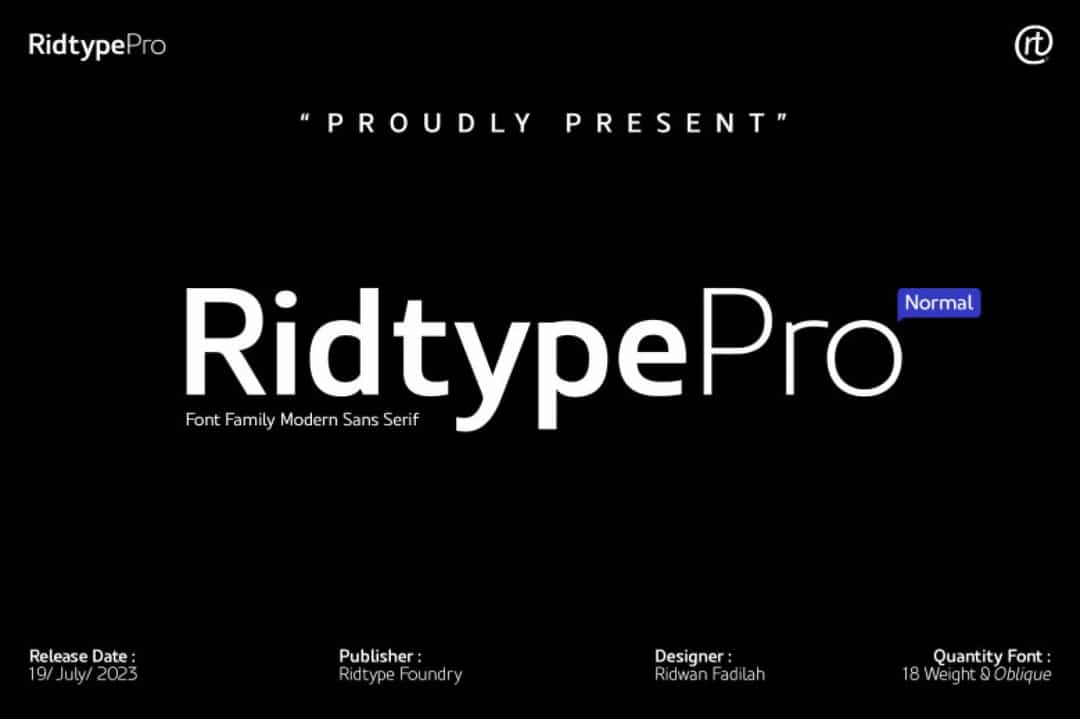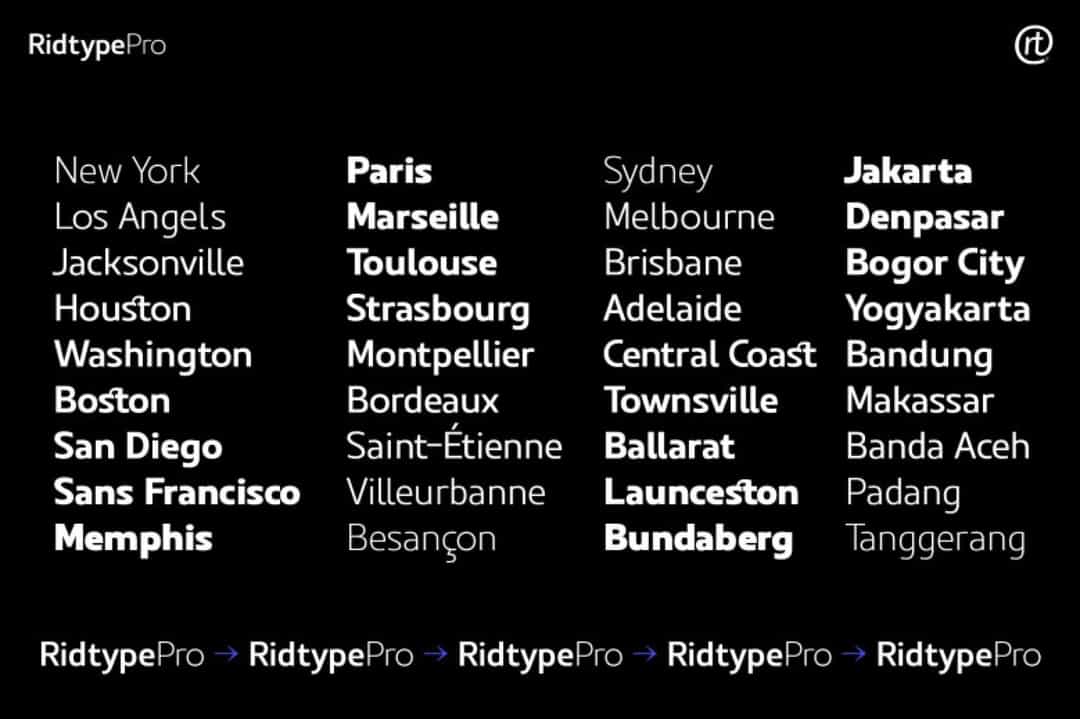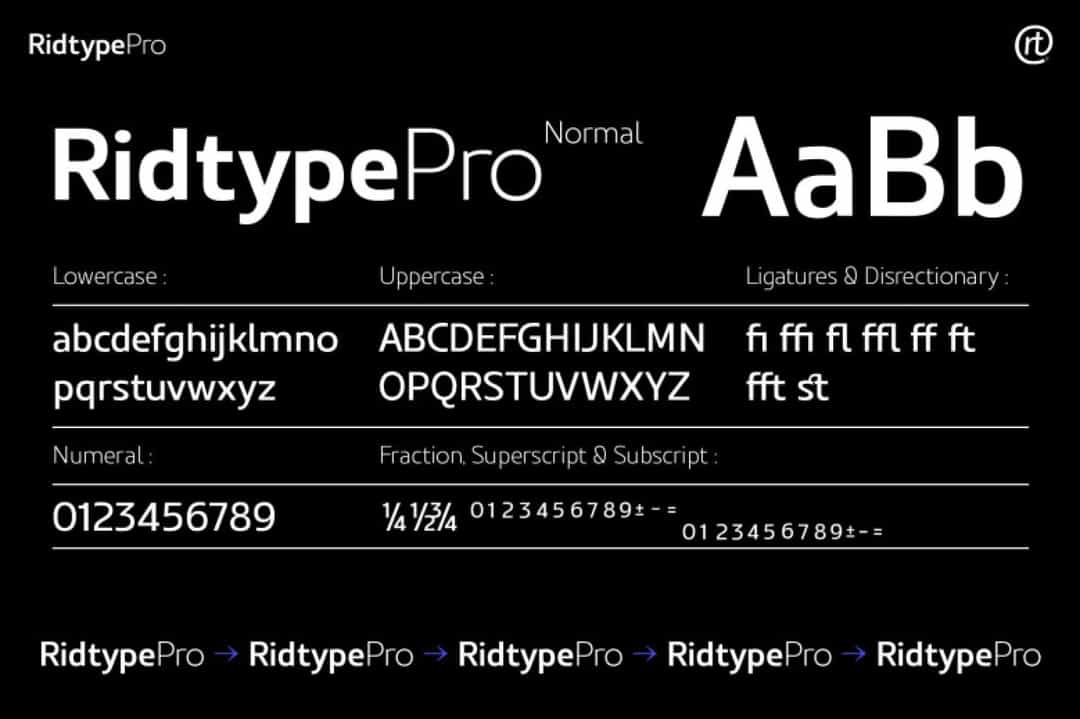
Ridtype Pro is the custom sans serif font we employ for our brand. In time, it will become integral in every aspect of what kind of brand we have to use – be it typography printing, typesetting or texting. Ridtype Pro features contemporary semi-classic typography.